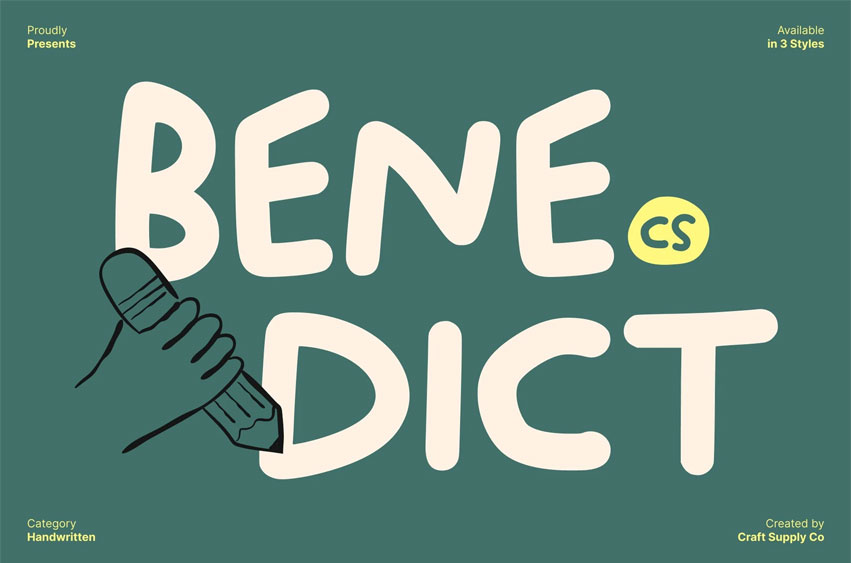
CS Benedict Font
CS Benedict Font Gritty Messy Font with Playful Scribbled Energy Irregular Scribbled Style with Bold Character This is a gritty, messy display font designed to look freely scribbled and delightfully irregular. Its chaotic strokes and loose handwritten structure give it a raw, expressive personality that stands out instantly. Instead of clean precision, this font celebrates spontaneity bringing an authentic, hand-drawn charm to every letter.
Playfully Messy for Fun and Whimsical Designs Every stroke in this font feels spontaneous and unrestrained, creating a playful vibe perfect for cheerful visual storytelling. The intentionally messy look mimics the free scribbles of casual writing, making designs feel lively, youthful, and full of movement. Its quirky shapes and gritty texture help inject fun into projects that need a burst of personality and imagination.
Ideal for Kids’ Designs and Creative Projects This font shines in children’s design themes whether for book covers, craft projects, educational materials, or playful branding. Its carefree forms and cheerful messiness make it relatable and engaging for young audiences. The font’s friendly irregularity brings warmth and authenticity, giving designs a hand-crafted feel that feels genuine and approachable.
Perfect for Fun Branding, Posters, and Casual Visuals From expressive posters and casual branding to social media graphics and playful product packaging, this font delivers strong visual impact with its messy, energetic charm. It helps set an informal, fun tone that encourages creativity and spontaneity.